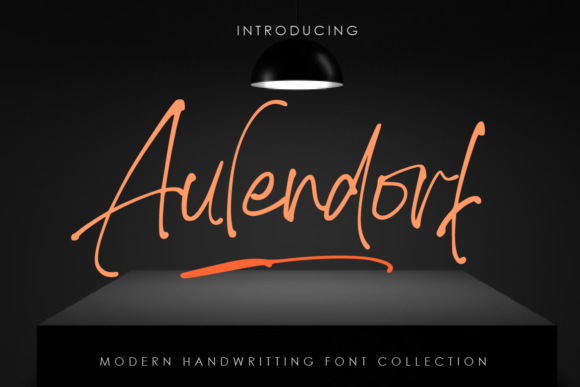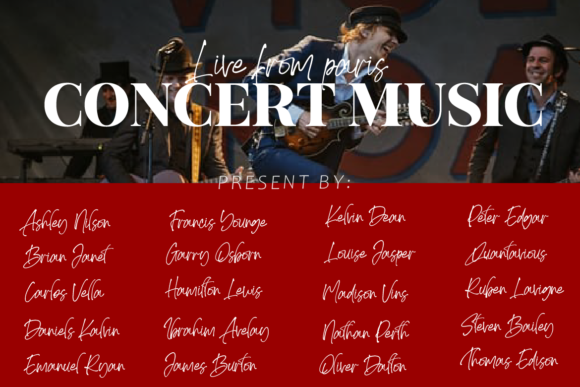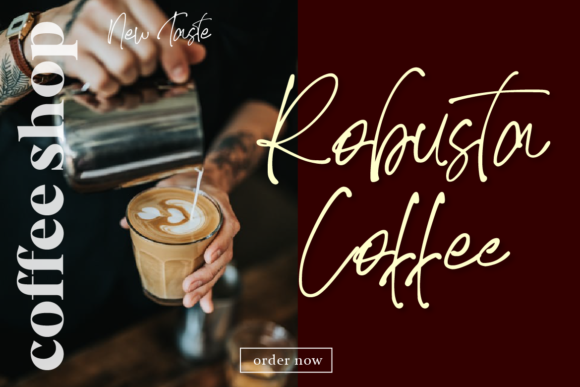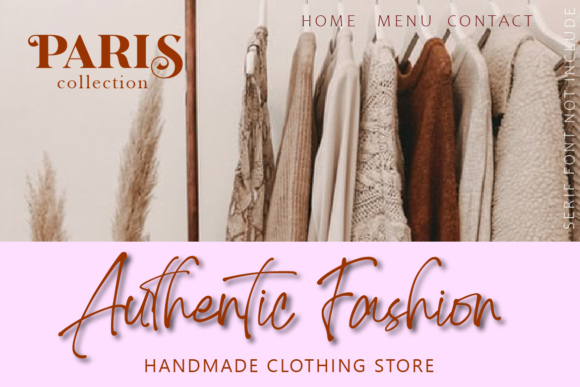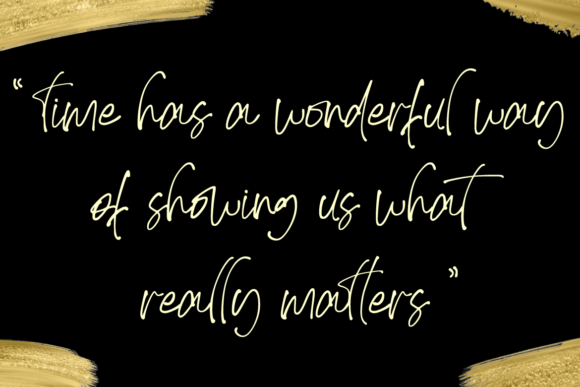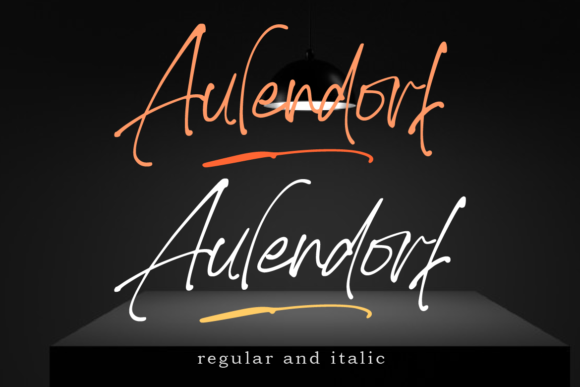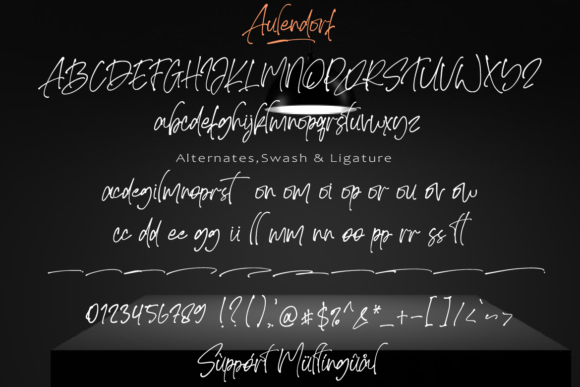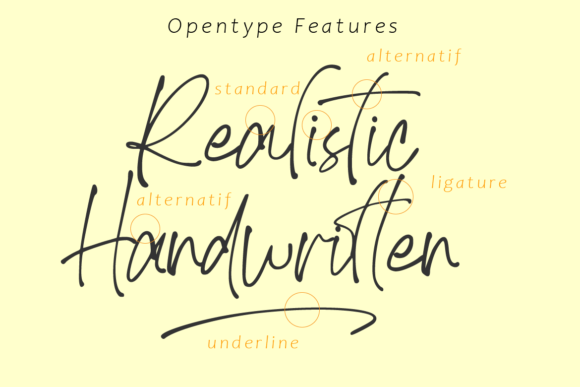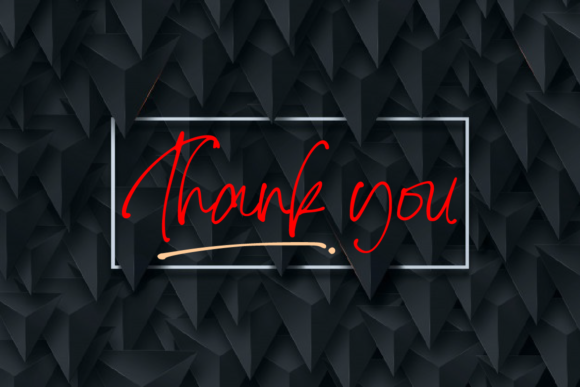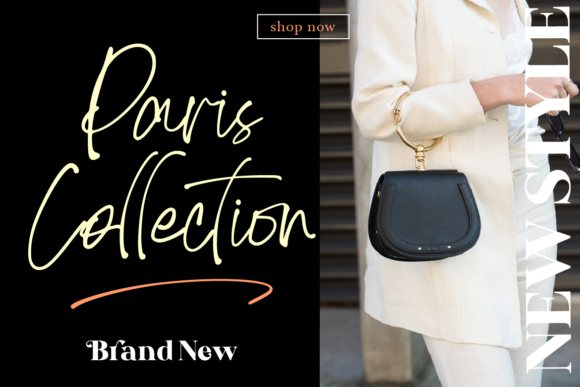
Aulendorf Font
About Aulendorf Font
Aulendorf is a charming and elegant font that exudes style and sophistication. With its stylish and thin vibe, this font adds a touch of elegance to any design it is applied to. Whether you’re creating logos, branding materials, invitations, or any other project, Aulendorf will make a lasting impression.
The beauty of Aulendorf lies in its delicate and refined appearance. The thin strokes and graceful curves give the font a sense of elegance and class, making it ideal for designs that require a touch of sophistication. It brings a modern and stylish element to your creations, elevating them to a higher level.
One of the notable features of Aulendorf is that it is PUA encoded. This means that you can easily access all of the glyphs and swashes that come with the font, allowing for more design versatility and customization. You can effortlessly add beautiful and decorative elements to your text, enhancing the overall aesthetic of your design.
Aulendorf’s versatility allows it to be used in a wide range of design applications. It works well for logos, where its sleek and elegant nature can create a memorable and professional brand identity. The font also shines in branding materials such as business cards, letterheads, and packaging, where its thin and stylish form adds a touch of sophistication and refinement.
In addition to branding, Aulendorf can enhance various types of invitations and stationery. From wedding invitations to event flyers, the font’s elegant and stylish aesthetic adds a sense of class and elegance, setting the right tone for your special occasion. Its thin and graceful letters bring an air of sophistication and allure, creating visually captivating designs.
Furthermore, Aulendorf’s thin and stylish vibe makes it suitable for digital designs, including website headers, social media graphics, and blog post titles. It adds a contemporary and refined touch to your online presence, helping your content stand out and leave a lasting impression on your audience.
In conclusion, Aulendorf is a charming and elegant font that adds a touch of style and sophistication to your designs. Its thin and stylish vibe, coupled with its PUA encoding, makes it versatile and suitable for various design projects. Embrace the charm and elegance of Aulendorf and watch your designs come to life with a sense of grace and sophistication.